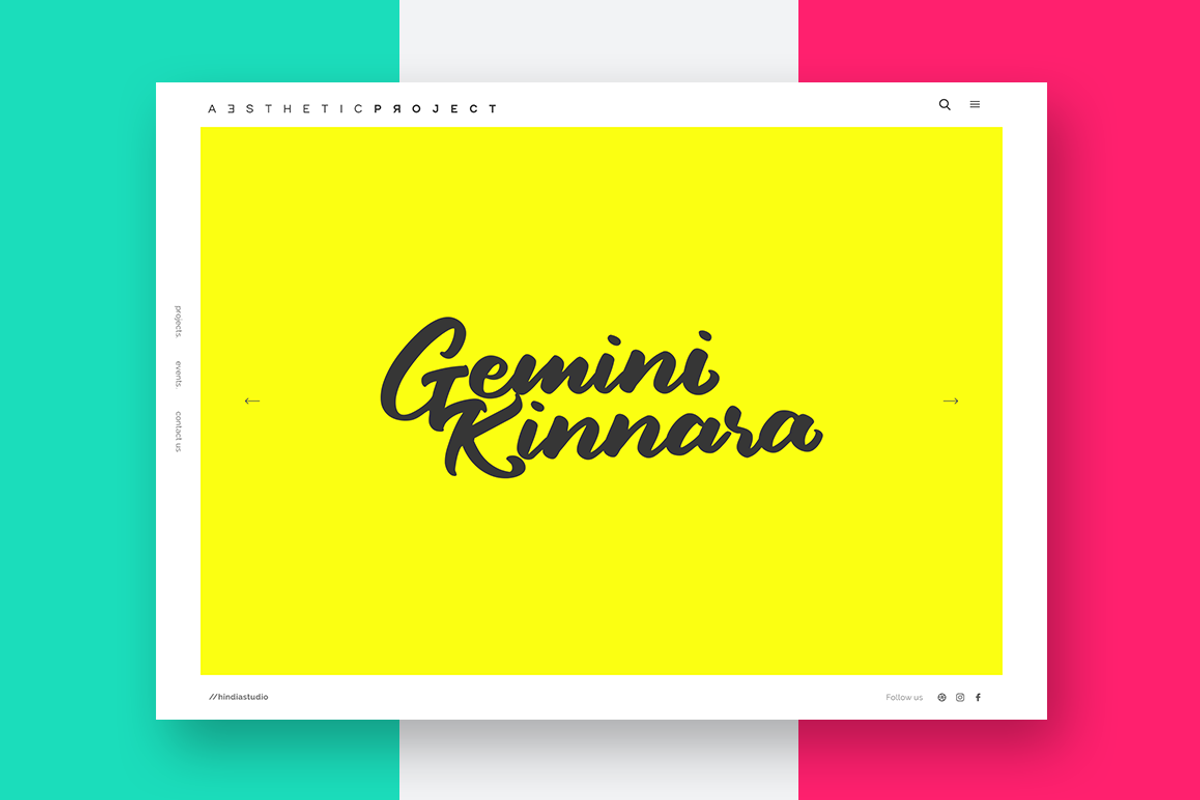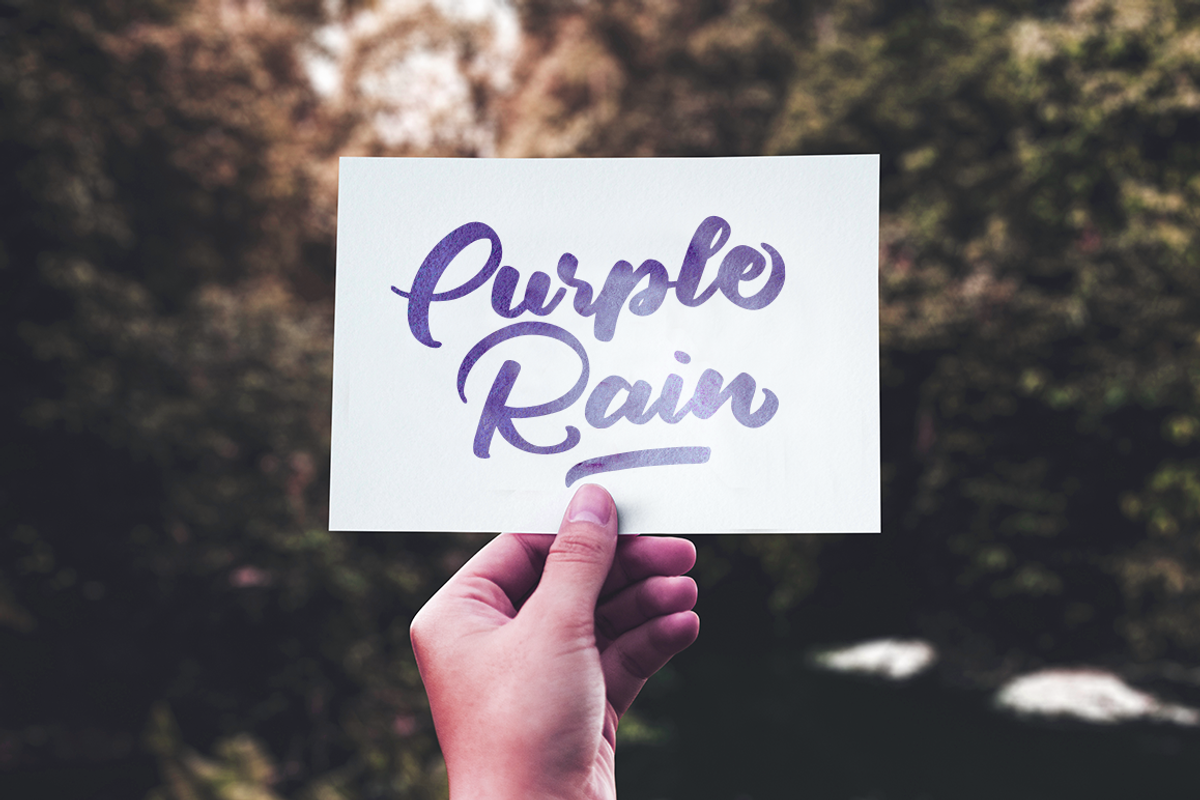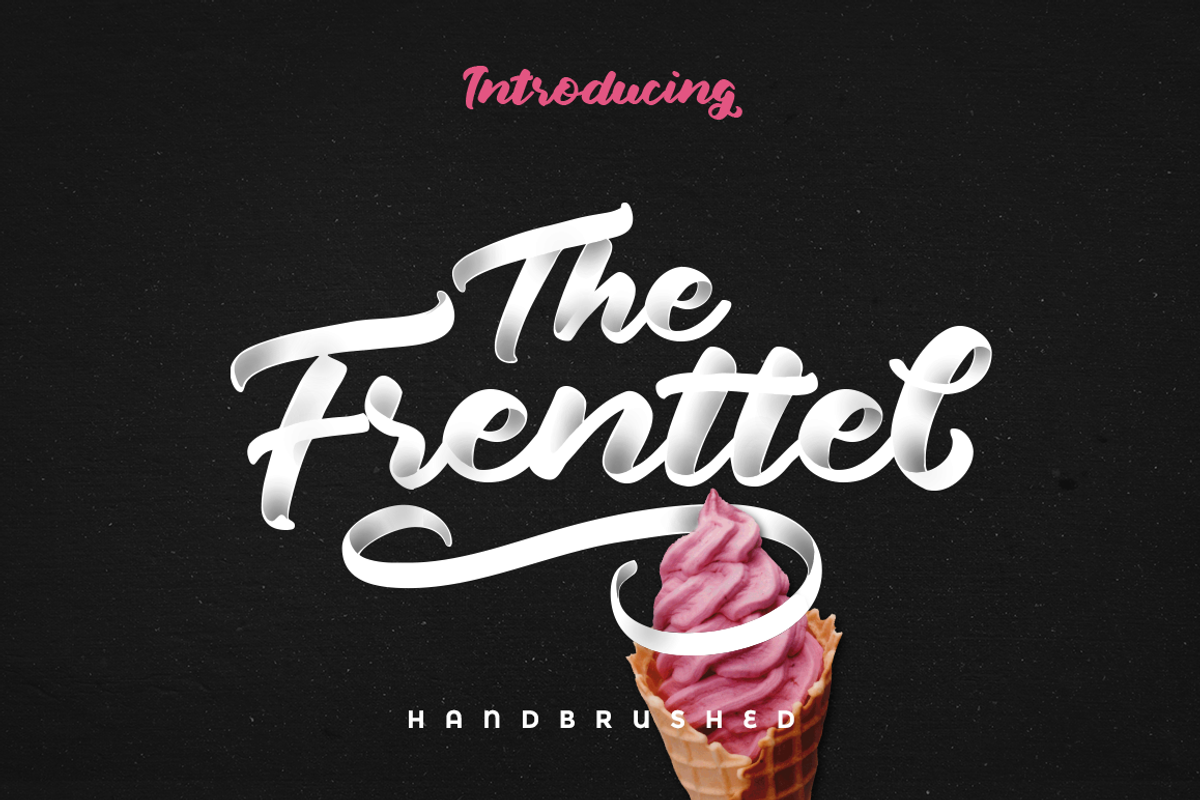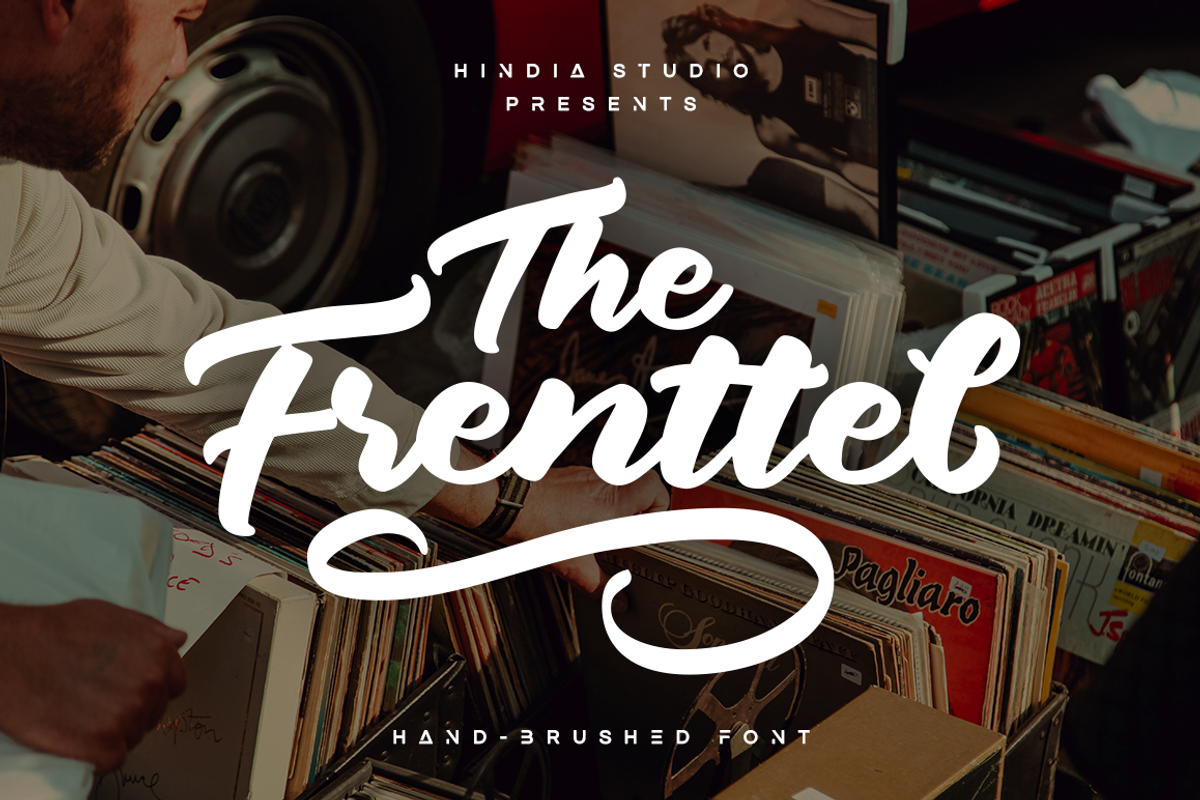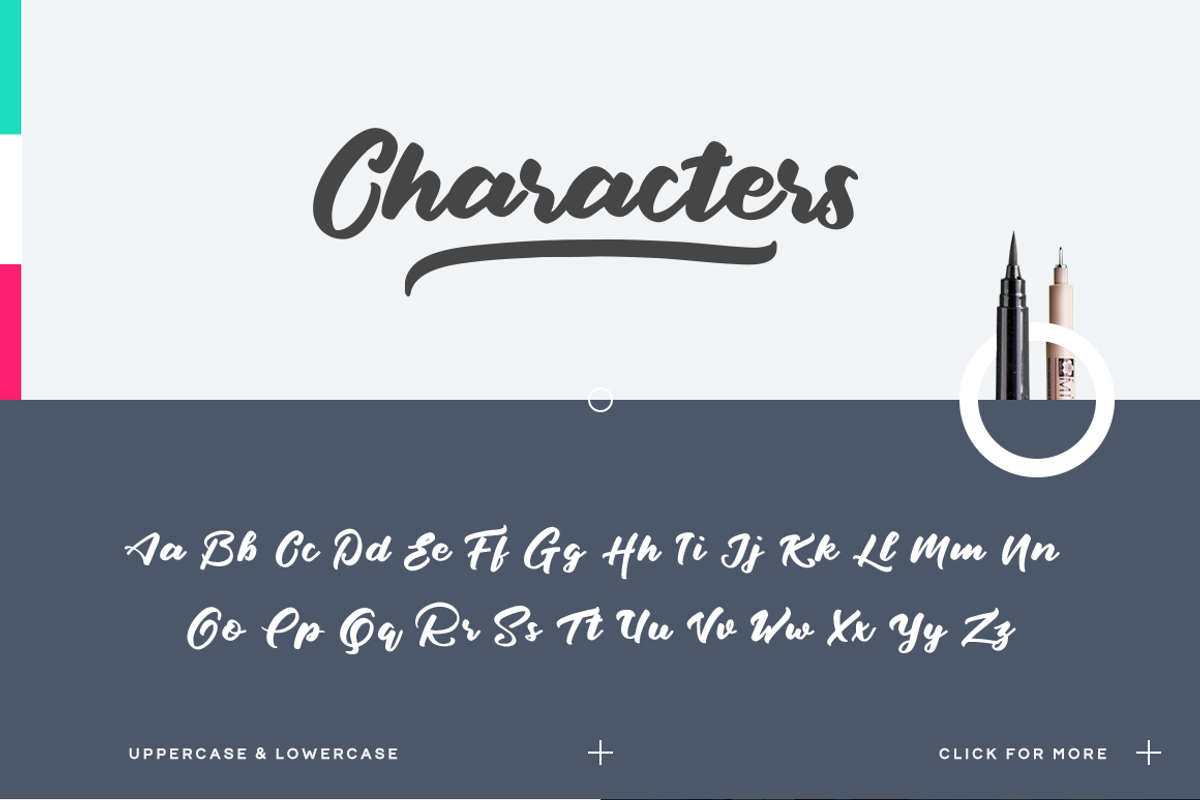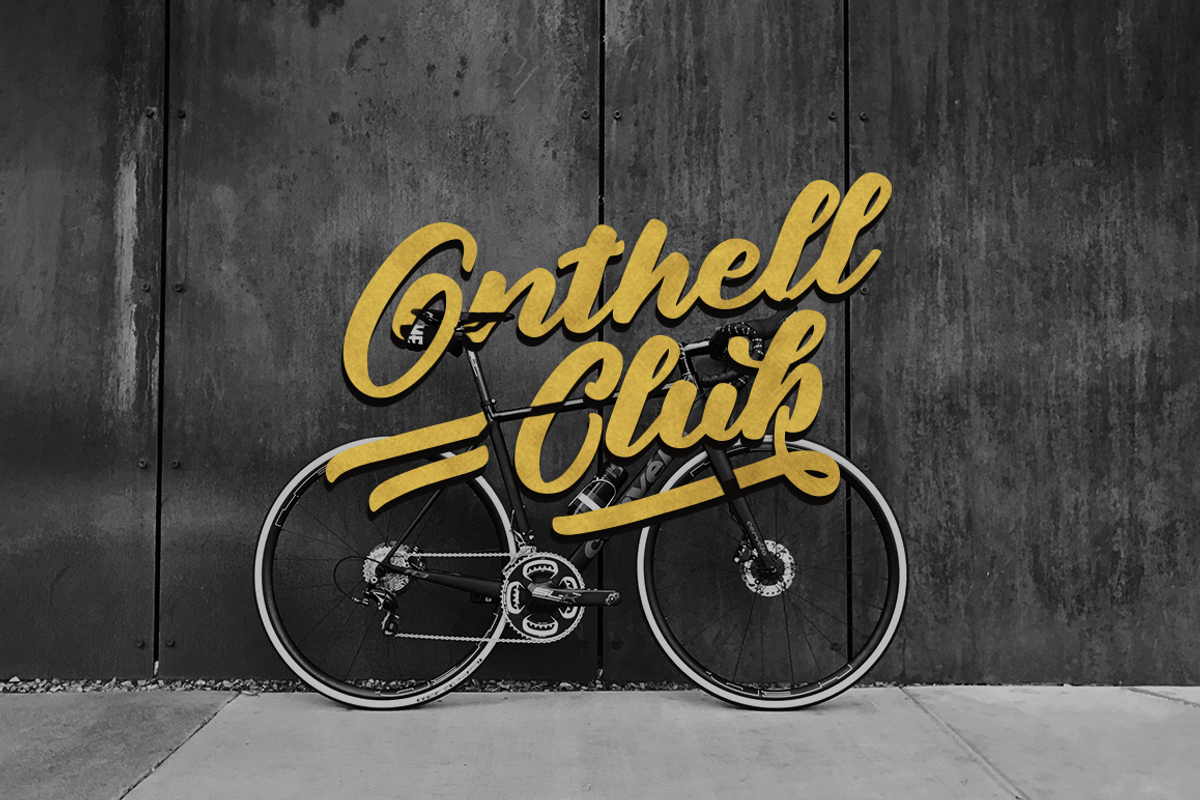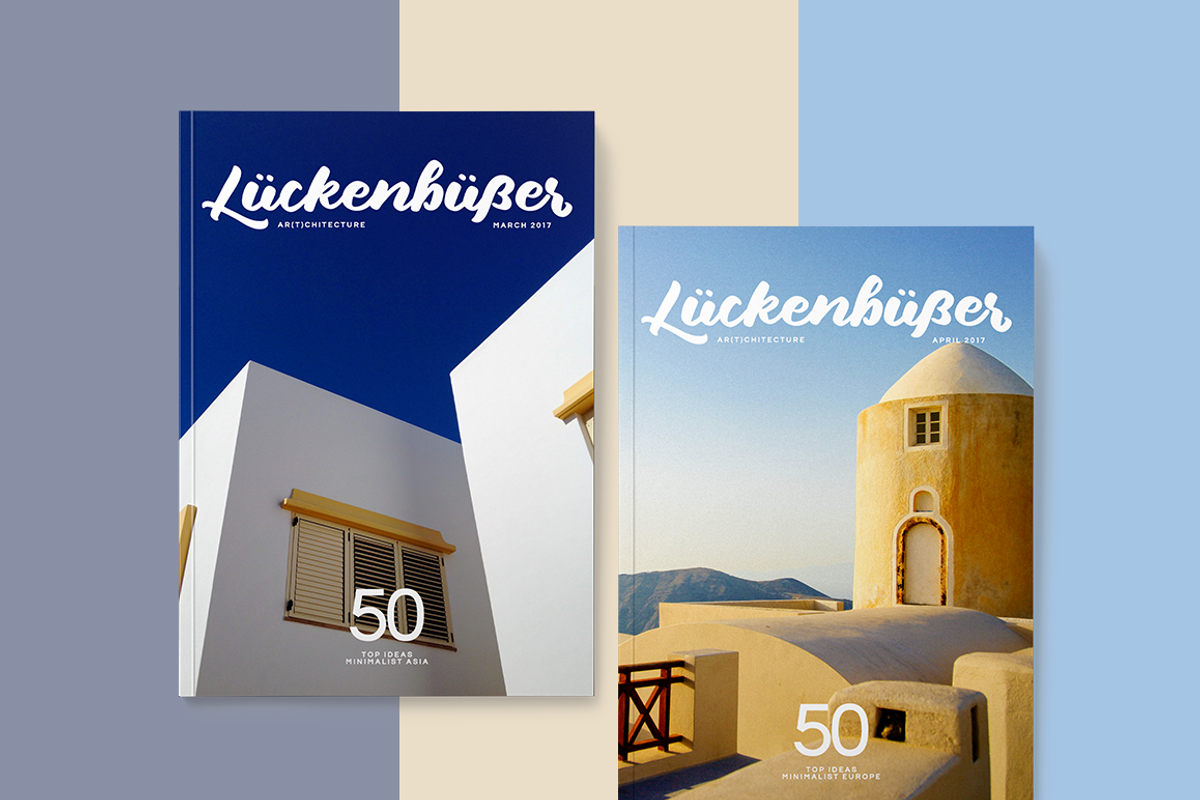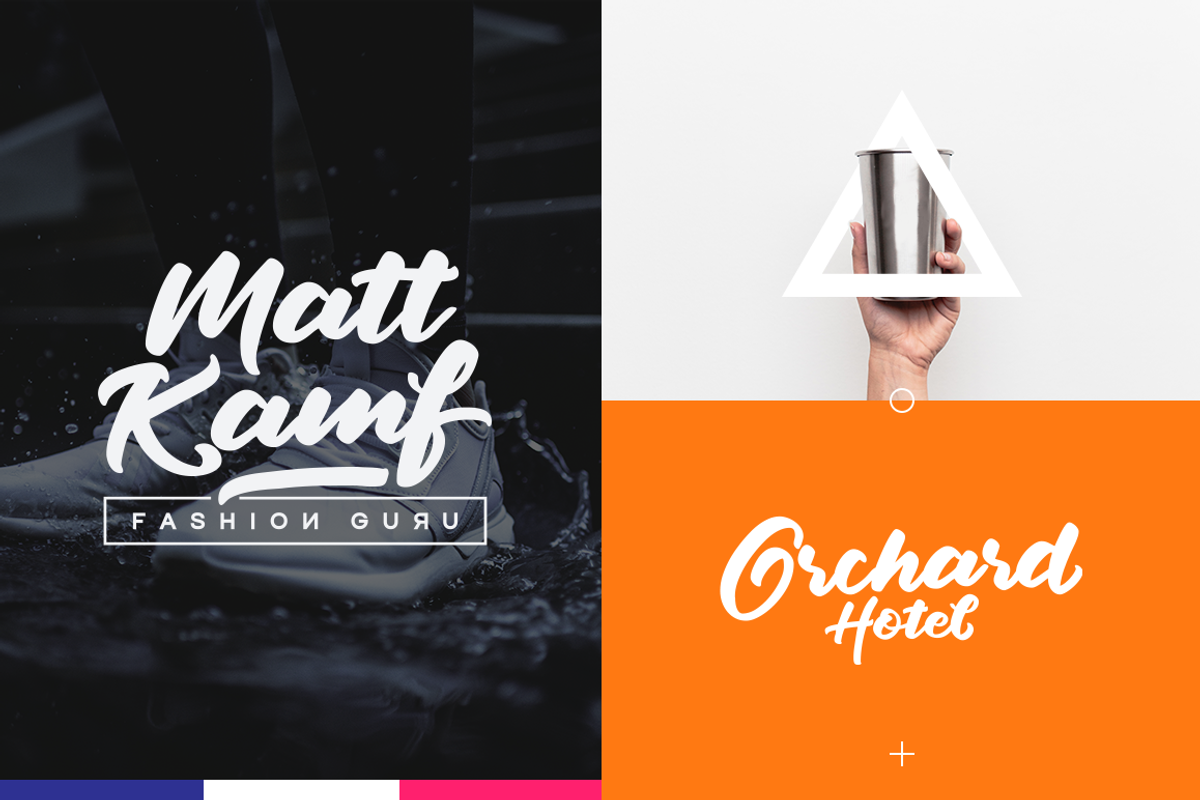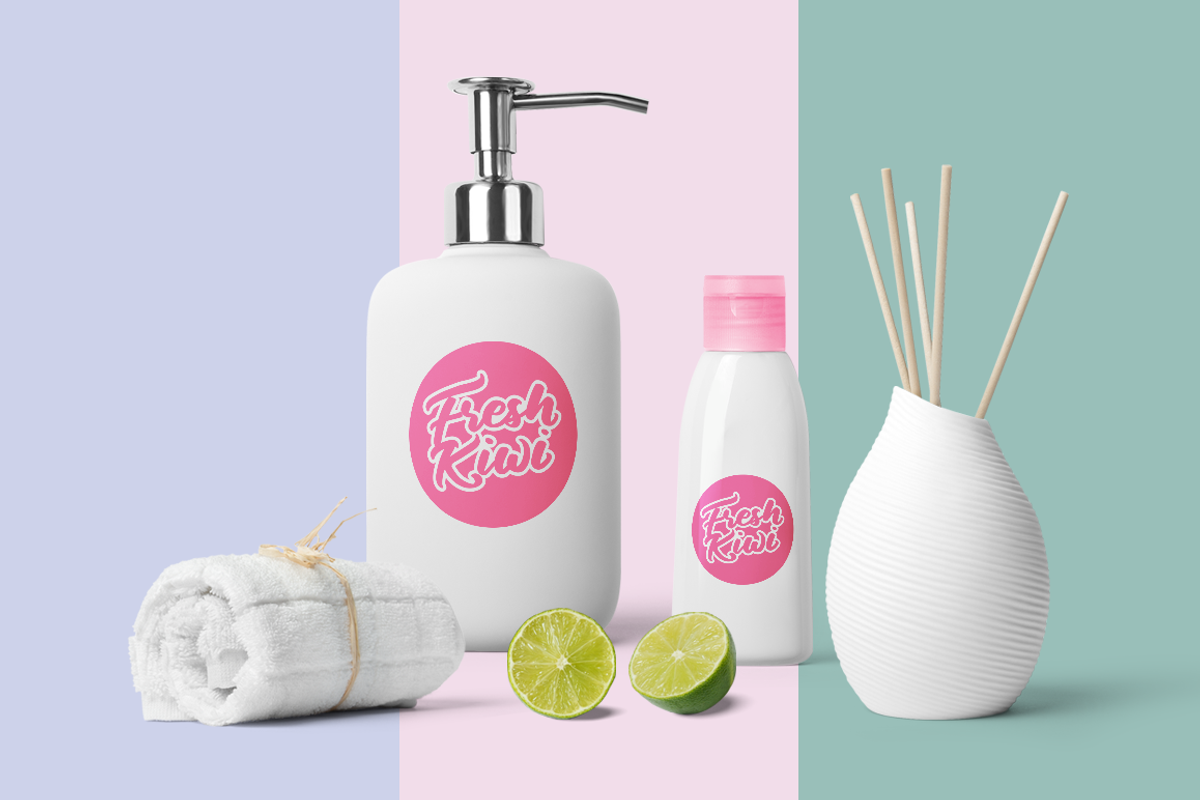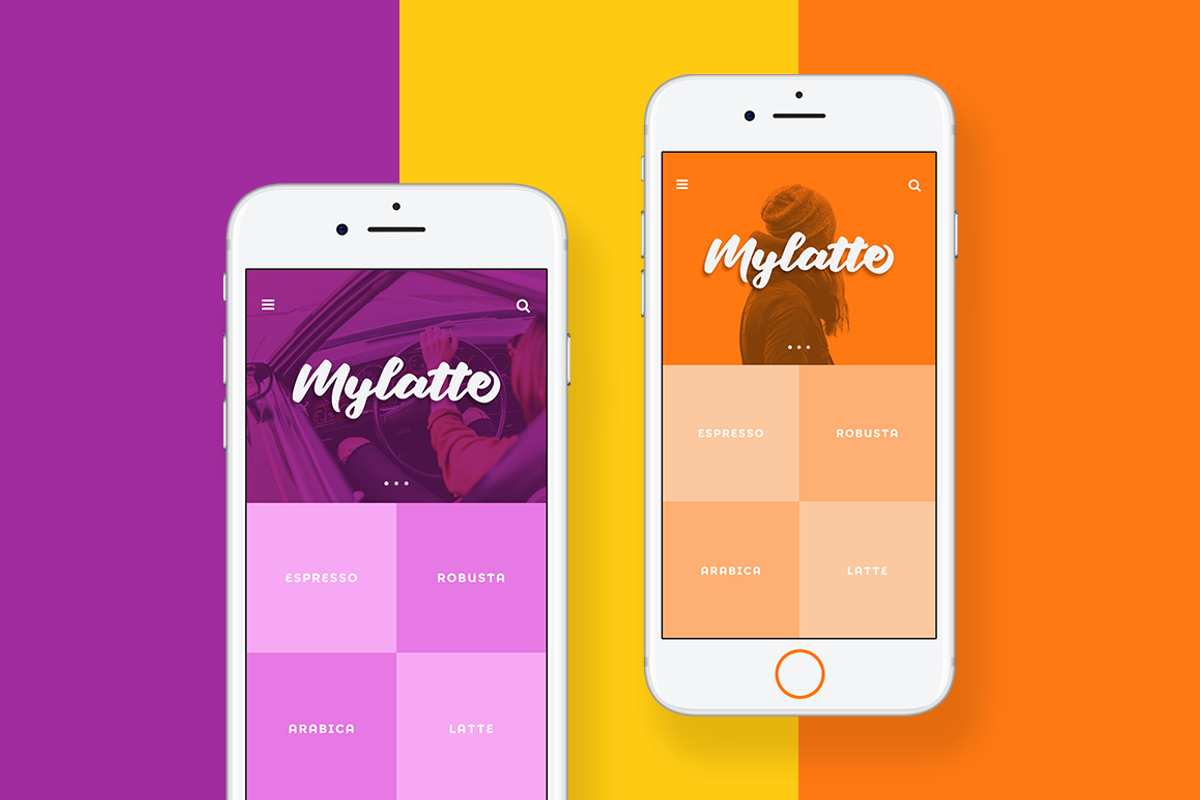
The Frenttel - Cursive Font
THE FRENTTEL | Cursive & Bold | A chubby hand brushed font
The Frenttel is a georgeous cursive script font which has chubby and smooth look. The characters are ideal to make appealing messages to fit your project. This is perfect to sweeten up your headlines, branding visual identity, editorial, poster, web, UI and etc.
- Frenttel Regular
- Frenttel Swashes
- Numerals &Punctuations
- Alternate lowercase
- 10 swashes (num. 0-9)